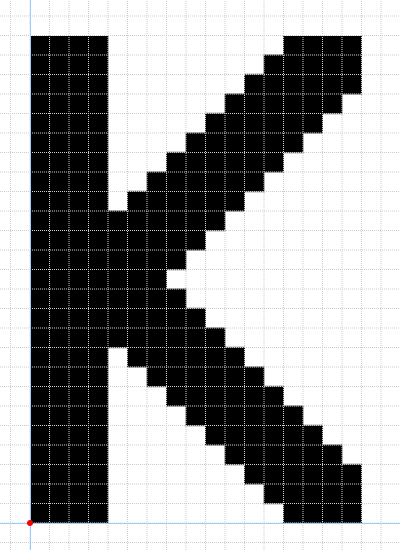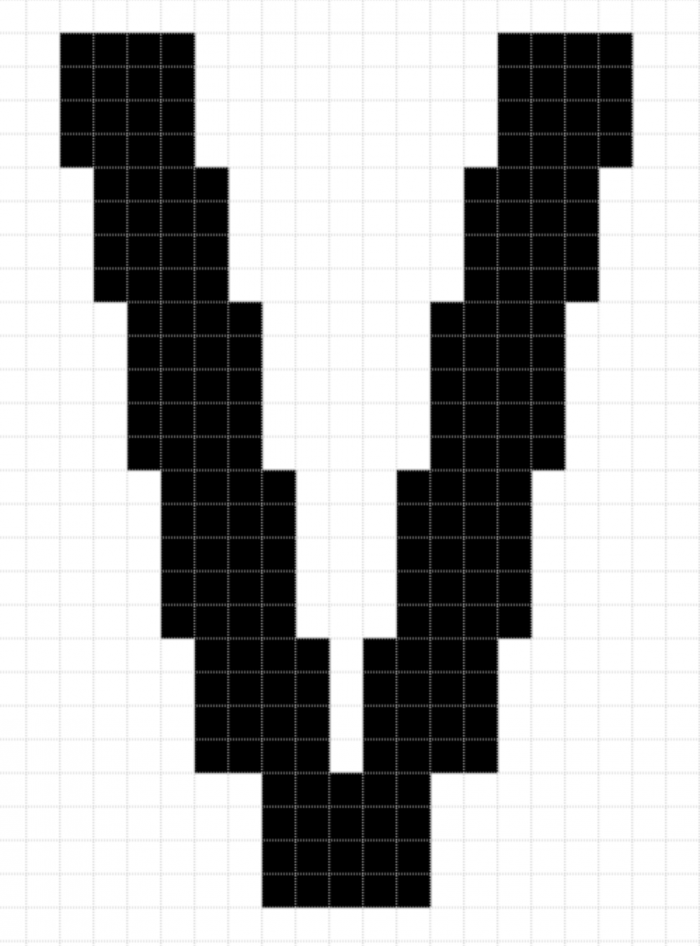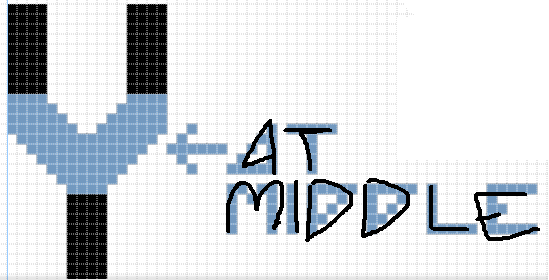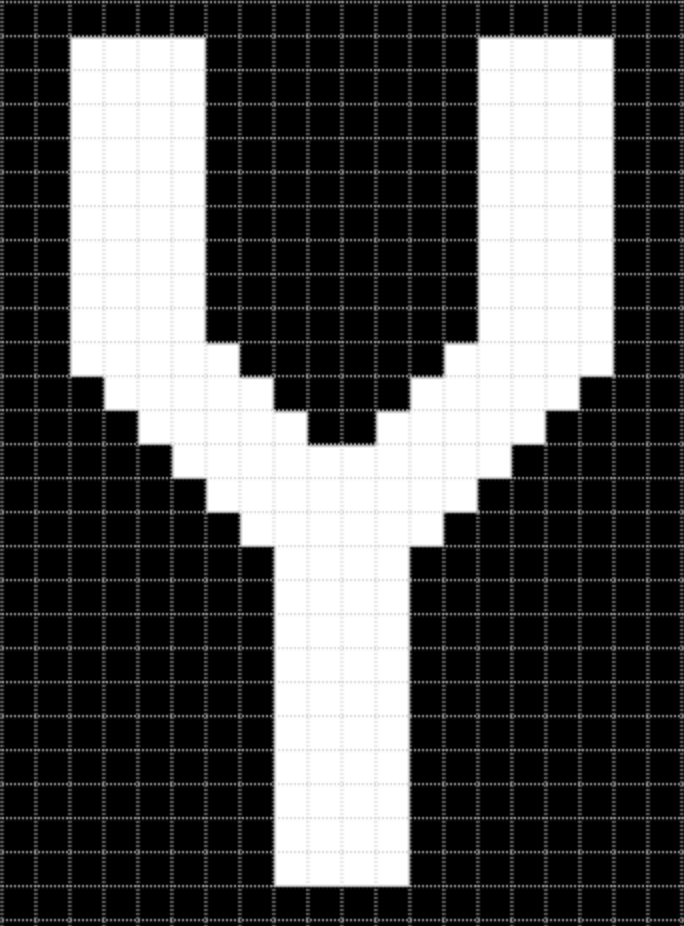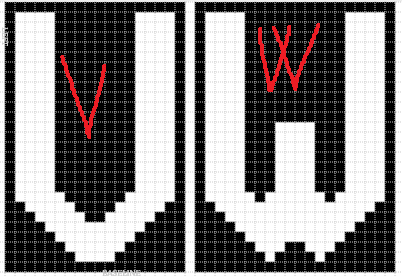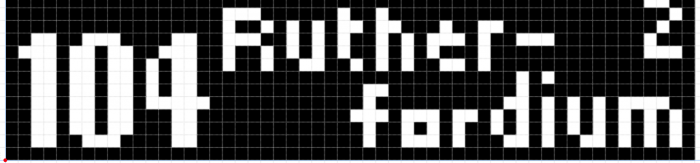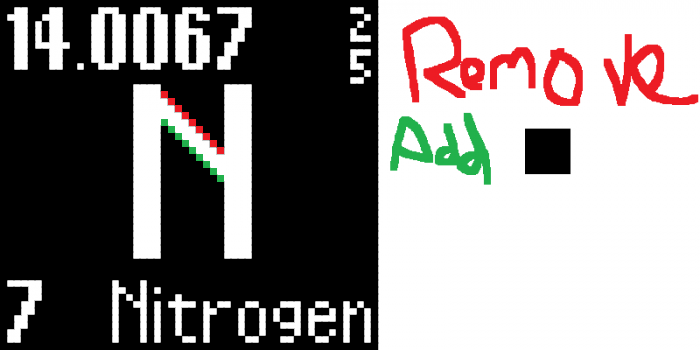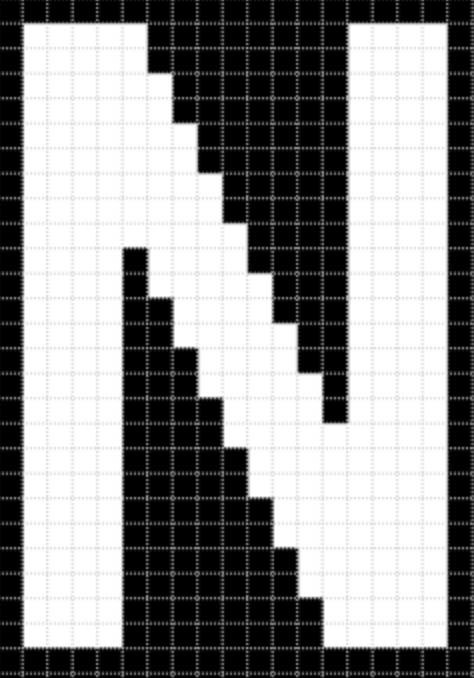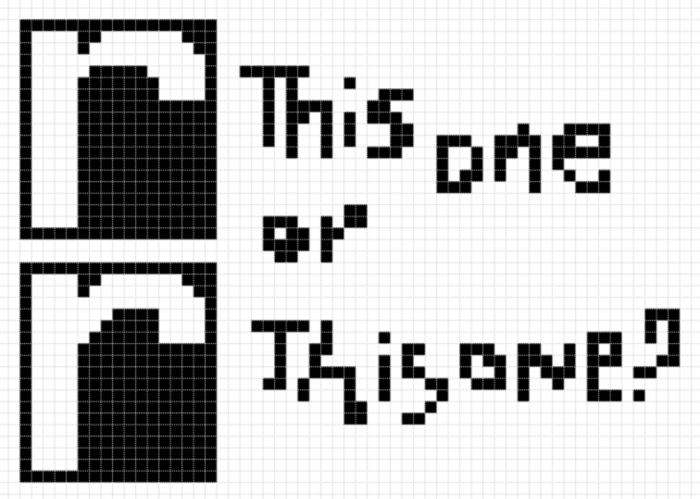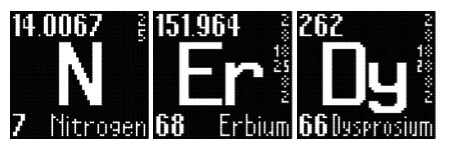
• OVERLOADED LOVE FOR CHEMISTRY
I named this font as KVN-Hoahoc, it was supposed to look like this: "KVN-Hóahọc", "Hóa học" means "Chemistry" in Vietnamese
Elements made: 73/118
All update information will be hidden from now.
<STILL IN PROGRESS >
IF YOU HAVE ANY SUGGESTIONS FOR ME TO REDESIGN THE LETTER OR FIX SOME OF THEM, PLEASE TELL ME IN THE COMMENT SECTION.
Maybe add parentheses for the most stable isotopes of radioactive elements
@BWM: Thank you for your ideas, and indeed, I will consider it. Do you have other suggestions for improving the "K"? I'm not competent of drawing letters in large areas of pixel.
Would something like this work?
@BWM: Whoa, this one is perfect! Thank you! (Gonna take a long time to complete the whole periodic table...)
THE MIRACLE OF MY LIFE HAS HAPPENED
A PERIODIC TABLE FONT IN FS
for lowercase you could do more elements
for Q you could do the old UUQ
element 114, livermorium's old symbol
@lucapri: I'm creating this as a Breaking Bad reference, so for the lowercase, I'll design it as a normal character though, also, Uuq (ununquadium) is called (Fl) Flerovium now, or maybe I should put Uuq and (Fl) Flerovium in this font too?
@BWM: Because I want to design it as a Breaking Bad reference, so all the things I will put in is: The name, the symbol, the atomic number, the atomic weight and the electron per shell.
oh... well just put FL
whatever
LTO does the spanish name of the first letter of this text
@BWM: Do you have any suggestions for my V and W?
the W could be the M upside down, and the V could use the diagonals of the M, but with the same thickness as the K and the leg of the R.
Also, the spacing should be a whole number value
Well, the V in the symbol of Vanadium is weird.
@digitalio: Yeah, it does appear strange; perhaps looking at other fonts can inspire me.
@digitalio, @BWM: What are your thoughts on this?
It looks good. I wonder if the big letters in the middle could have its own font?
@BWM: I'll make that one when I finish KVN-Hoahoc.
Well, 2k7, it's better.
I'm going to create the lowercase letters for this font, I will recreate this as a BB reference, I hope it won't take me too much time to add these
Proposal for a better Y (Resize just in case).
For a better X, mirror from the 'At middle' to the top part horizontally and put it below the original part.
Oh, and TUNGSTEN used to be WOLFRAMINE or WOLFRAMIUM in english.
@digitalio: I like that idea, just not to make the middle of the Y too thick, it'll be good.
@digitalio: How about this?
@digitalio: And also, thank for your idea about the X, it's look much better now.
@Kiên
That's good. I forgot the fact that the 'At Middle' part was too thick yesterday.
You can also make a better V removing the lower part, and a better W doing 2 V's.
Like these ones
@digitalio: That's a great idea. Thank for your suggestions.
WE NEED MORE ELEMENTS